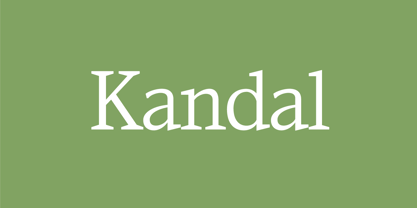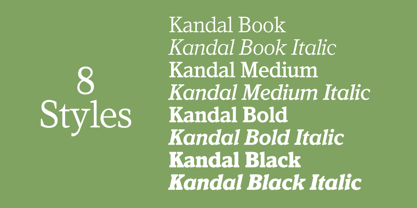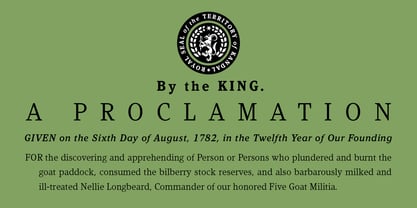
Kandal™
by Mark Simonson Studio
The Kandal Font Family was designed by Mark Simonson and published by Mark Simonson Studio. Kandal contains 8 styles. More about this family
Kandal is a wedge-serif face with old style or antique qualities. It has low contrast in weight between thicks and thins, even as it gets bolder. Its proportions are slightly condensed, and the color and texture of Kandal Book is not unlike Century Old Style. (The name "Kandal" rhymes with "bundle.")
Designers: Mark Simonson
Foundry: Mark Simonson Studio